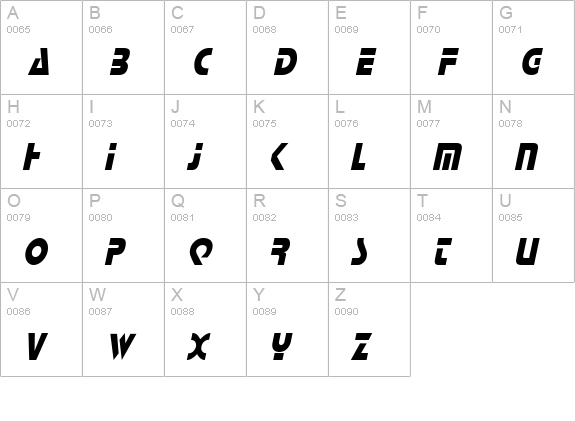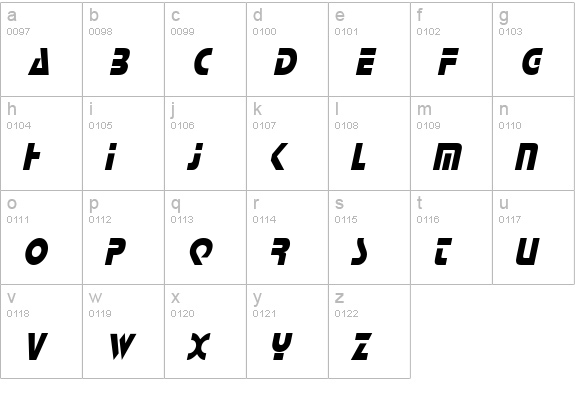
Scottsdale Condensed Italic Font Details
Scottsdale Condensed Italic is a distinctive, condensed-width, italic variant in the Scottsdale typeface family \xE2\x80\x94 well suited to design and typography projects.
Scottsdale Condensed Italic is a sleek and modern font that exudes elegance and sophistication. Its slender and italicized design adds a touch of grace and flair to any project, making it perfect for branding, logos, headlines, and more. The condensed nature of the font allows for maximum impact while conserving space, making it an ideal choice for limited design areas. With its clean and crisp lines, Scottsdale Condensed Italic is versatile and adaptable, making it suitable for a wide range of design applications. Whether you're creating a sleek and professional website, a captivating advertising campaign, or a stylish magazine layout, this font will effortlessly enhance your designs and draw attention to your message. One of the best features of Scottsdale Condensed Italic is that it is available for free download at FontsMarket.com. This means that you can easily access and utilize this stunning font without any additional cost. FontsMarket.com is a trusted source for high-quality fonts, and their collection includes a vast array of styles and options to suit any design need. Don't miss out on the opportunity to add Scottsdale Condensed Italic to your font library. Its timeless beauty and versatility make it a must-have for designers, and the fact that it is freely available for download at FontsMarket.com only adds to its appeal. So, go ahead and elevate your designs with this exquisite font today!